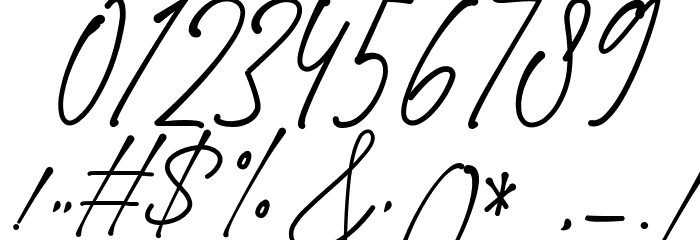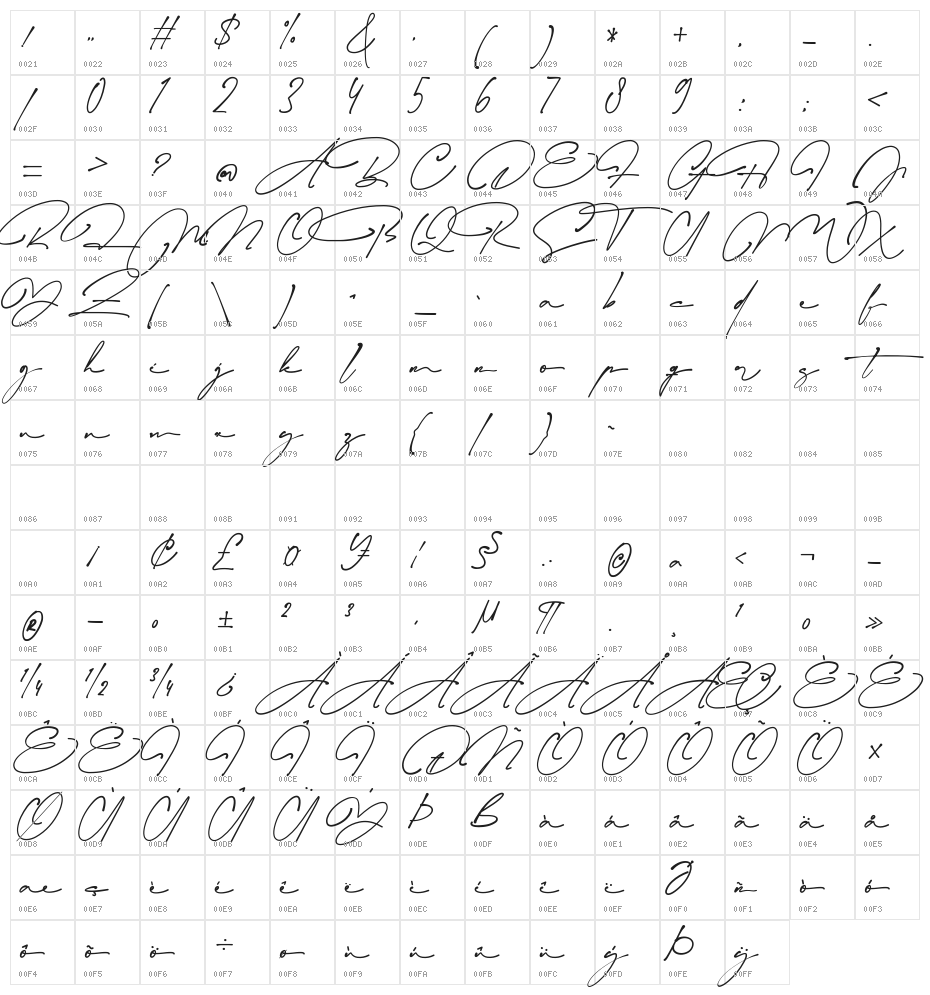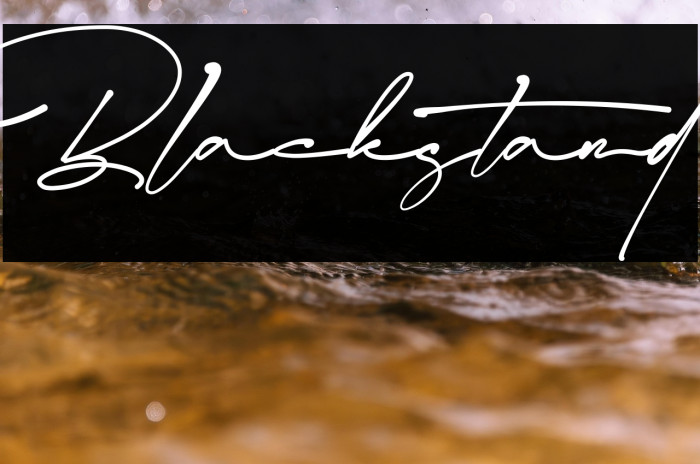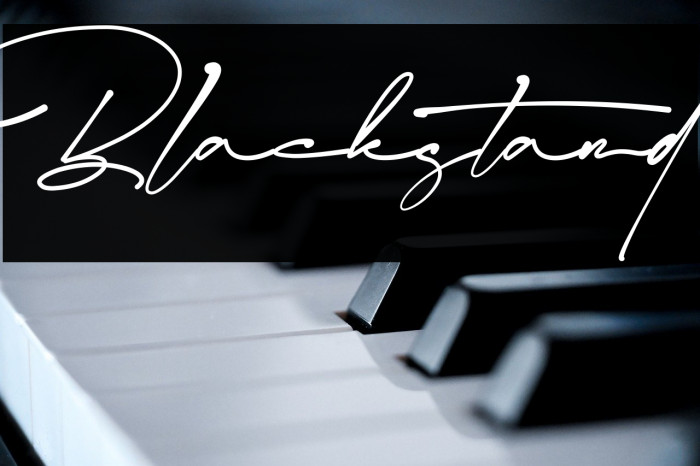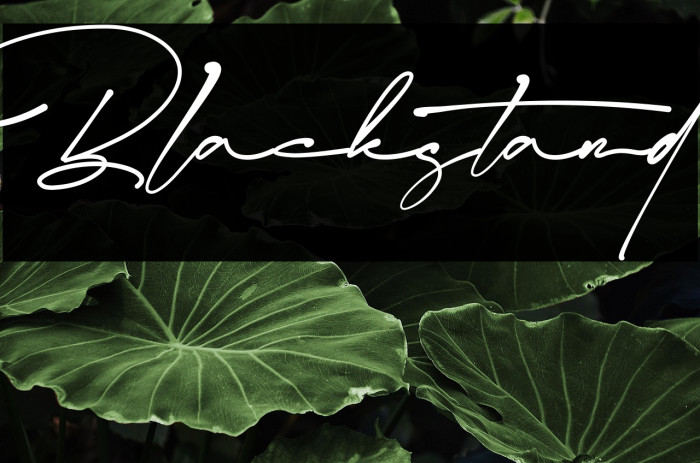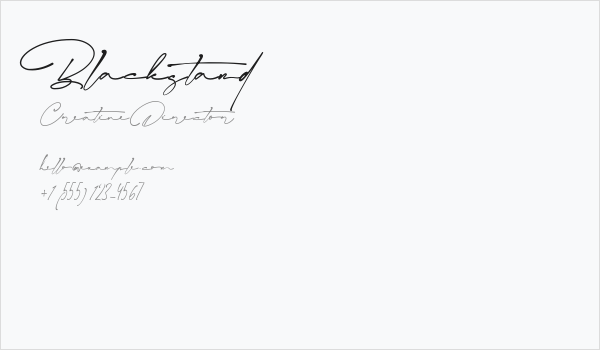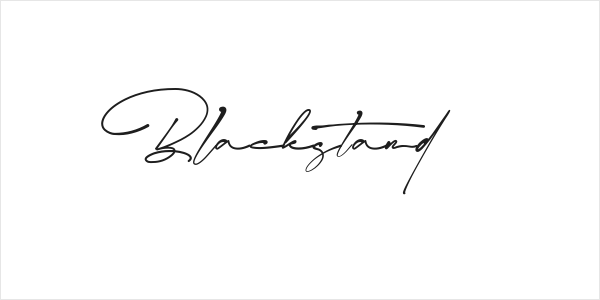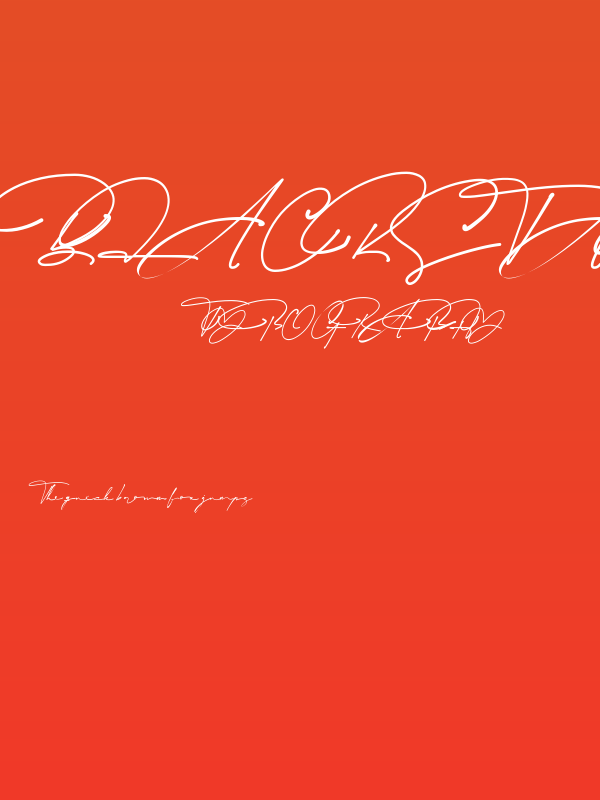
Blackstand Font
Blackstand Description
This font exudes a sophisticated and elegant handwritten style, characterized by its fluid and continuous strokes. The uppercase letters are intricately designed with loops and curves, giving a sense of movement and grace. The lowercase letters maintain a consistent flow, enhancing the script's natural and organic appearance. Numbers and special characters are crafted with the same attention to detail, ensuring a cohesive look across all elements. The overall aesthetic is both modern and timeless, making it suitable for a variety of creative applications.
| Overall Style | Elegant, Modern |
| Proposed Projects | Ideal for wedding invitations, branding, logos, and elegant stationery. |